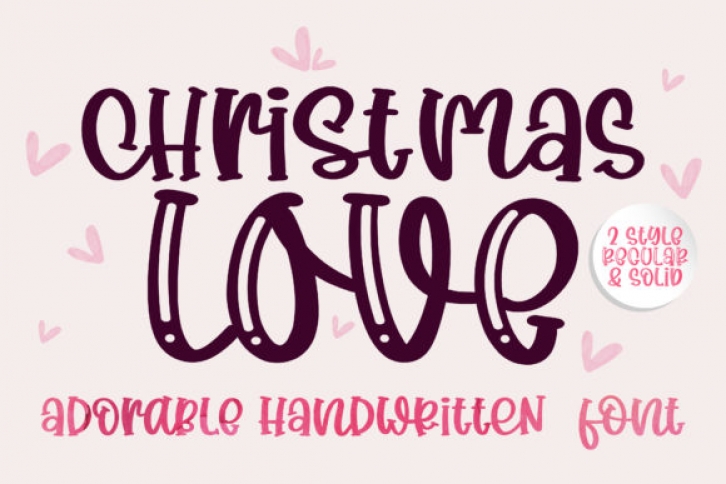
Christmas Love is an adorable and joyful display font. Its natural and unique style makes it incredibly fitting to a large pool of designs. The only limit is your imagination!